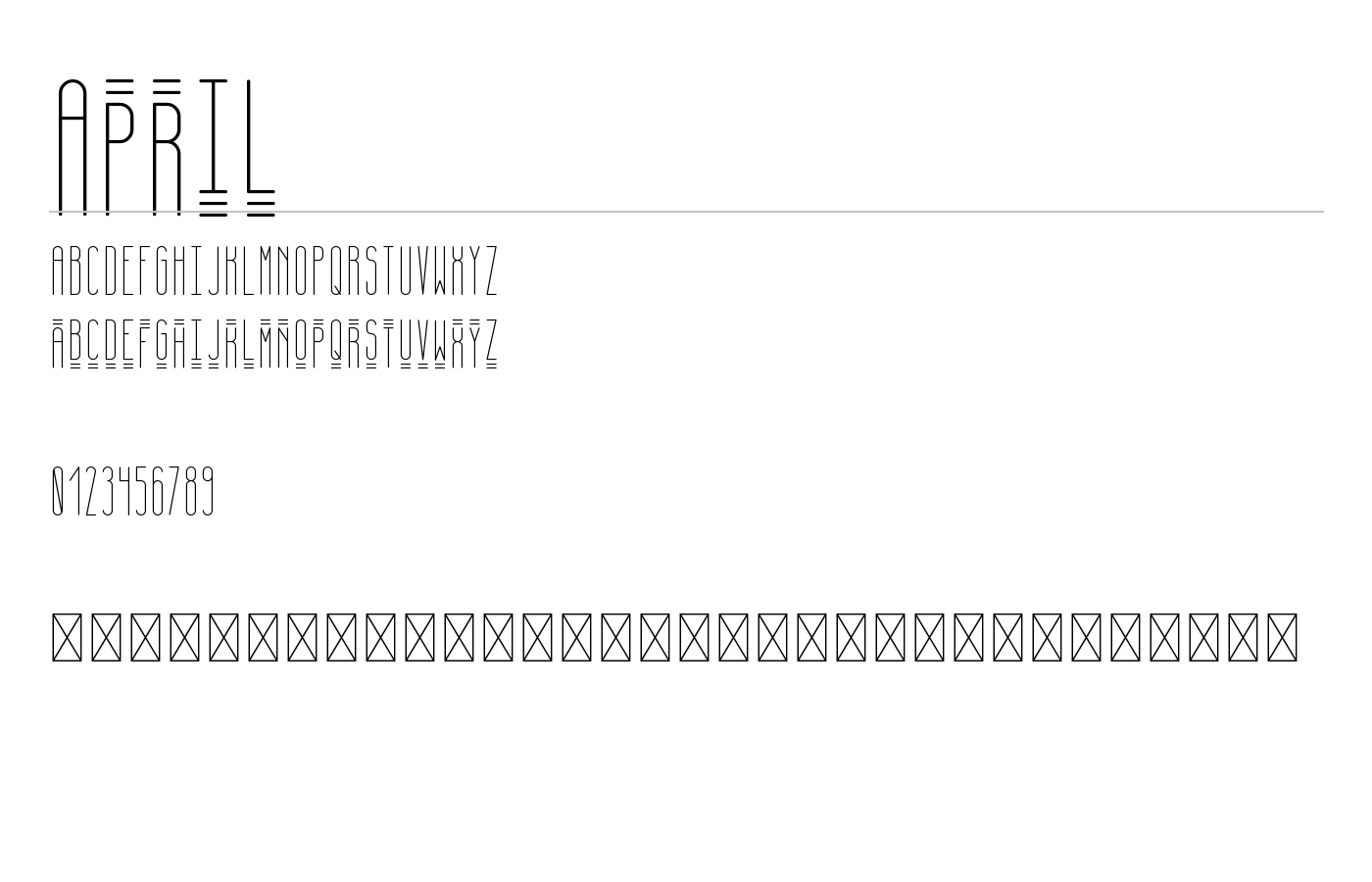
April Font is a slender, tall sans serif typeface with a modern, minimalist feel characterized by extremely thin strokes and narrow letterforms. Its high contrast lines and unique accent marks give it a stylish, elegant look, making it perfect for fashion branding, editorial headlines, and sophisticated logo designs where a refined and contemporary aesthetic is desired.
April Font
About April Font